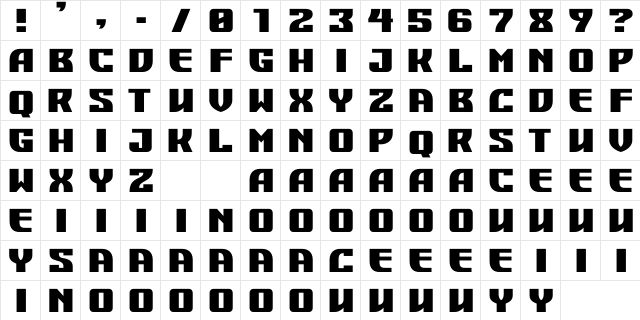
DOJO KICK Regular
| Designer | Design Dojo |
Design Context for DOJO KICK Typeface
DOJO KICK is a composed and adaptable typeface that performs quietly and consistently across a wide range of design contexts.